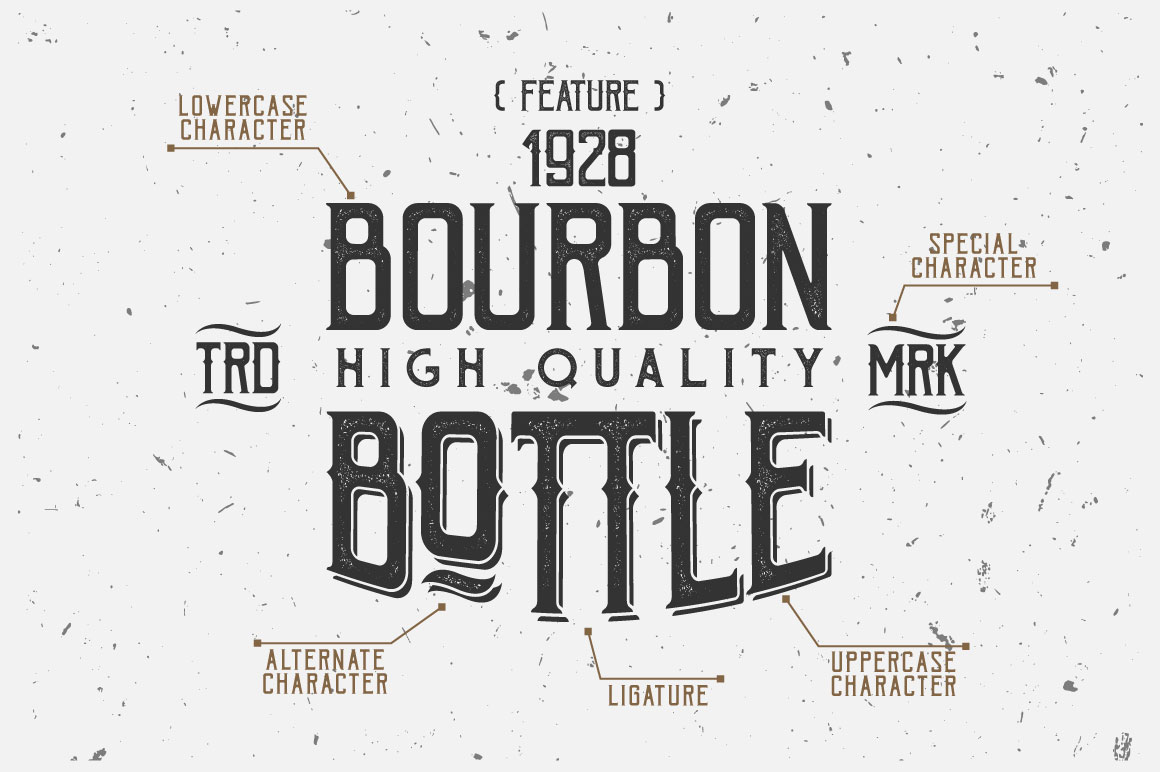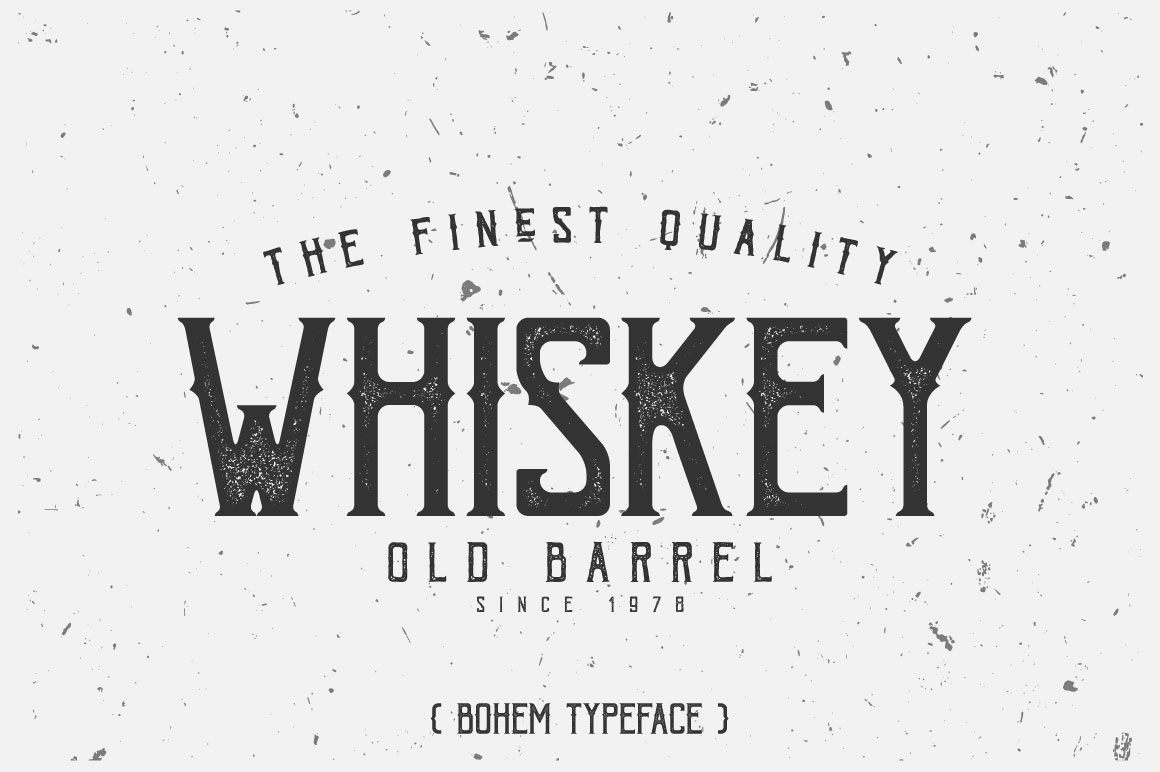
Bohem Press Free Font
Bohem Press Free Font has 5 Style: Clean, Shadow, Press, Press Shadow & Vintage with a vintage character inspired by beer and brewery it’s very helpful to get Vintage design. Suitable and applicable to create vintage design, branding, logos, product packaging, invitation, quotes, t-shirt, label poster, etc. This free typeface was designed by talented Andika Setiawan. If you like it don’t forget to check out the full version.